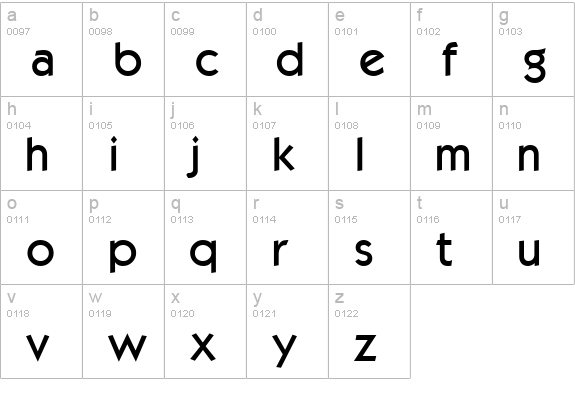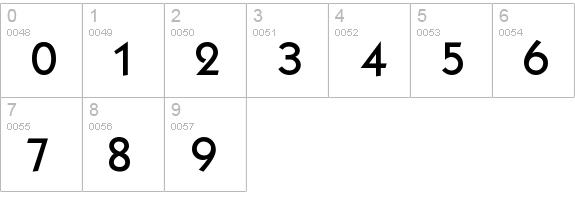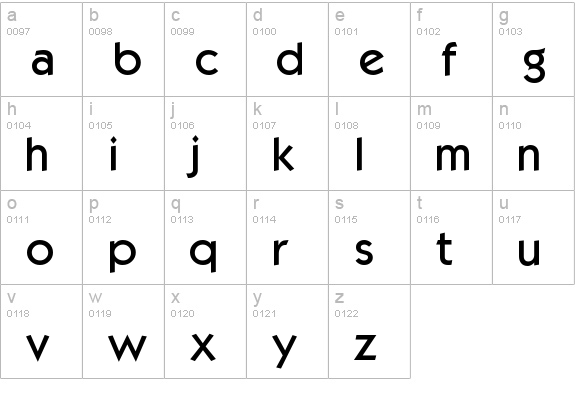
Kabel Regular Font Details
Kabel Regular is the standard, neutral variant in the Kabel typeface family \xE2\x80\x94 well suited to general body text, paragraphs, and standard typographic work.
Kabel Regular font is a modern and versatile typeface that exudes elegance and sophistication. Its clean lines and balanced proportions make it perfect for a wide range of design projects, from branding and advertising to packaging and editorial layouts. With its timeless appeal, Kabel Regular font adds a touch of professionalism and refinement to any design. The letters are carefully crafted, featuring a harmonious mix of straight and curved strokes, resulting in a visually pleasing and easy-to-read typeface. This font is ideal for conveying a sense of reliability and trustworthiness, making it suitable for corporate identities, business communications, and professional documents. Its versatility allows it to seamlessly adapt to different visual styles and contexts, while maintaining its distinctive character. Kabel Regular font is also free, making it accessible to designers and creatives of all levels. It can be freely downloaded at FontsMarket.com, a trusted source for high-quality fonts. Whether you are a seasoned designer or just starting out, this font is a valuable addition to your typographic toolbox. Embrace the timeless beauty and versatility of Kabel Regular font and elevate your designs to new heights. Download it for free today at FontsMarket.com and bring a touch of elegance to your next project.